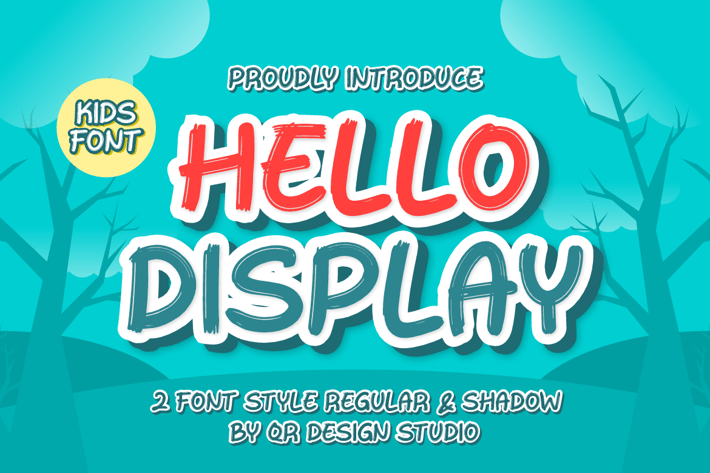
Hello Display - Brush Font
Hello Display - Brush Font is a bold and authentic display font.
The font is suitable for any branding project like logo, kids, summer, food, poster, kids, and many more.
Shadow